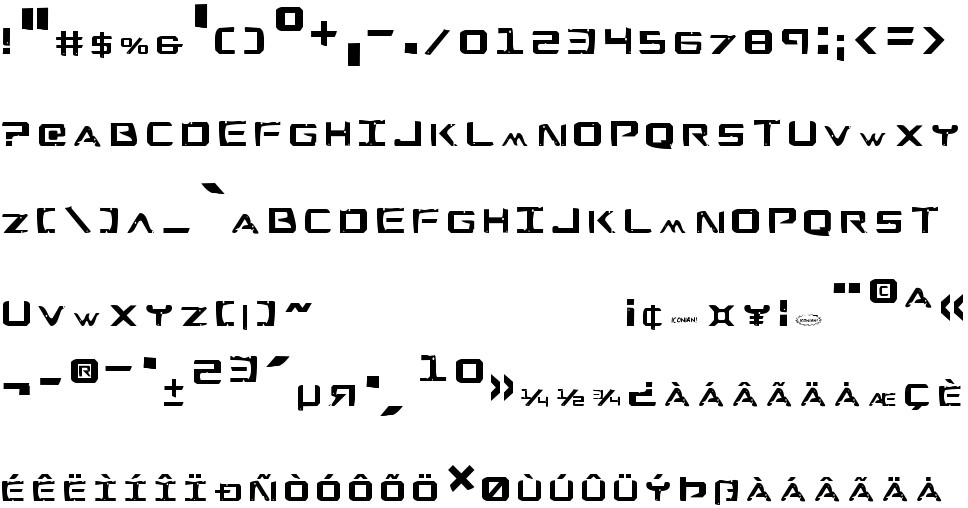
War Eagle Font . Web war eagle font is a fancy, destroy font designed by iconian fonts. Web download free war eagle font by iconian fonts.
It is decorative font and has 10 styles. Web war eagle font | dafont.com english français español deutsch italiano português. It is decorative font and has 10 styles. War eagle font is available for free download for noncommercial, personal projects.